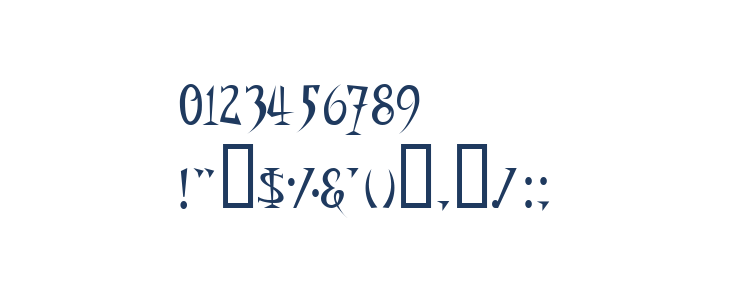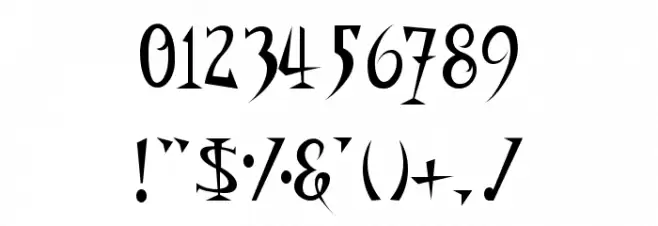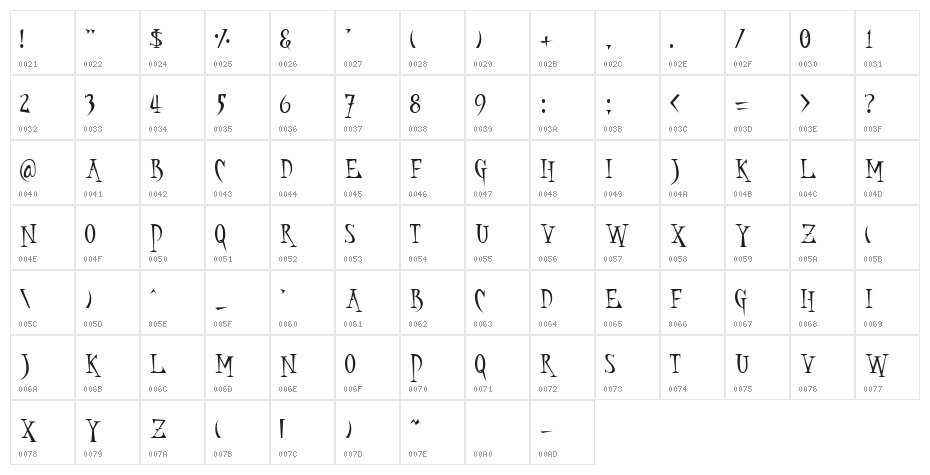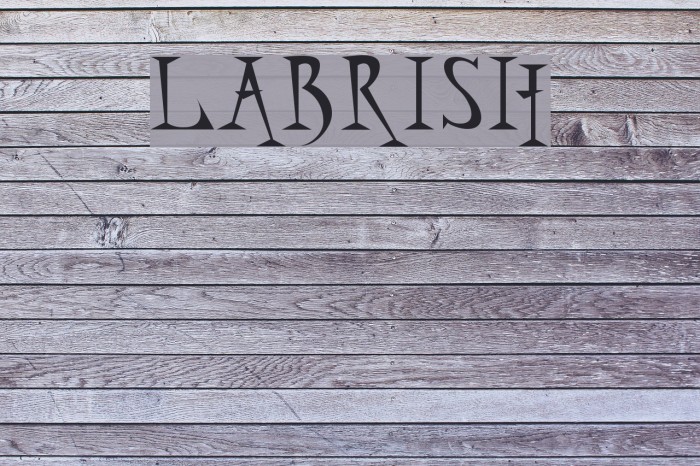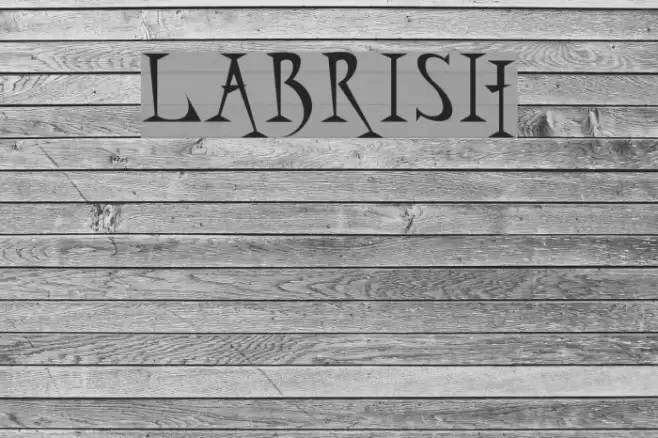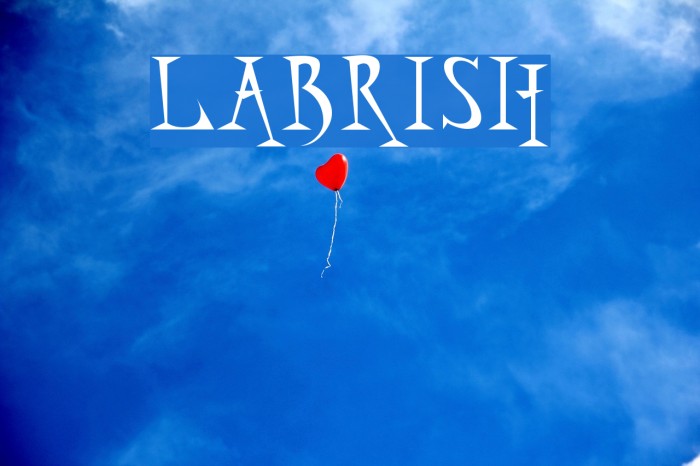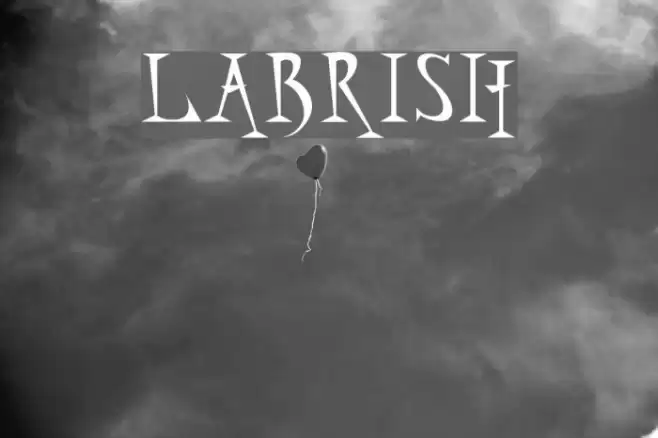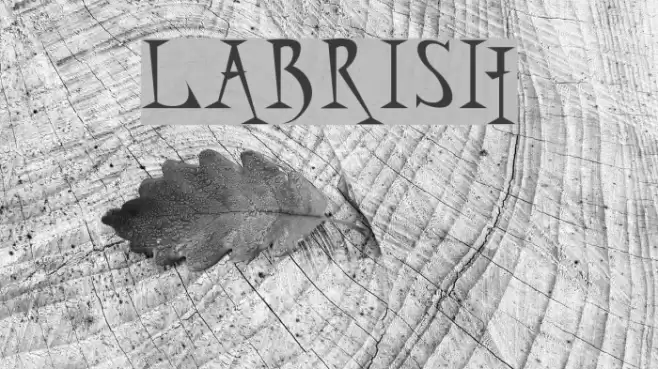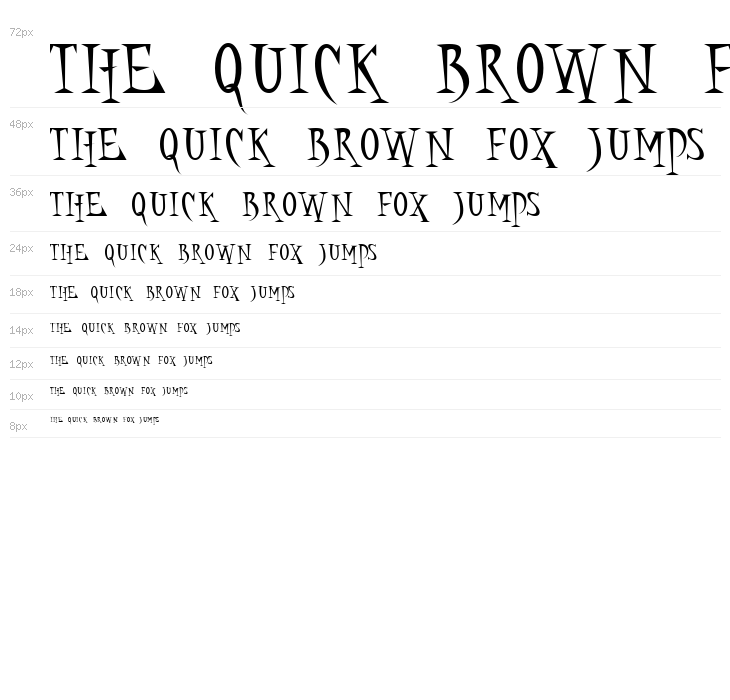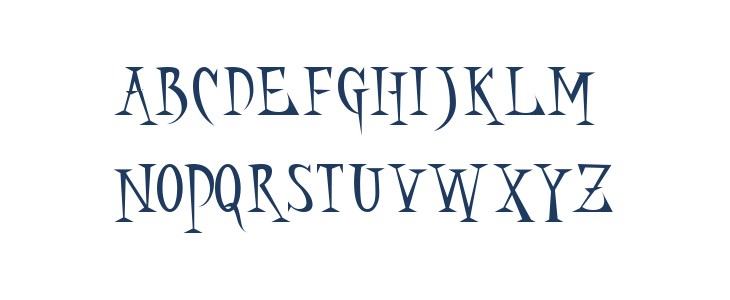
labrish Font
labrish Description
This font features a distinct and edgy style with sharp, angular serifs and a gothic influence. The characters are bold and dramatic, with exaggerated points and curves that give them a unique flair. The uppercase letters are particularly striking, with a medieval aesthetic that is both eye-catching and memorable. The lowercase letters maintain this theme, offering a cohesive look across the alphabet. Numbers and special characters are designed with the same attention to detail, ensuring consistency throughout. This font is ideal for projects that require a bold statement or a touch of the fantastical.
| Overall Style | Gothic, Decorative |